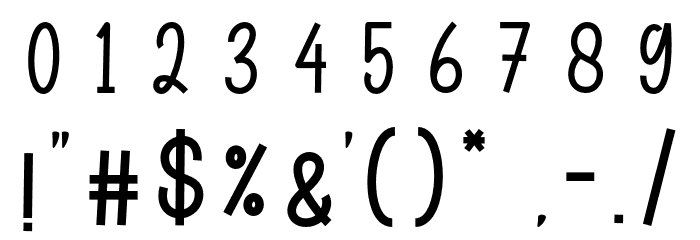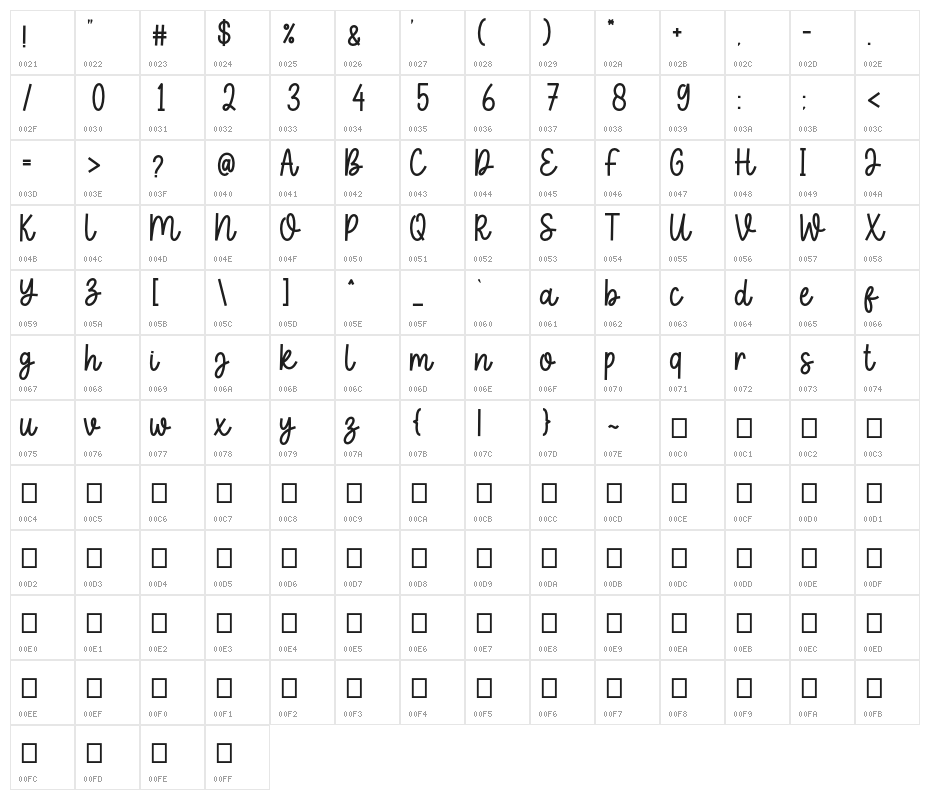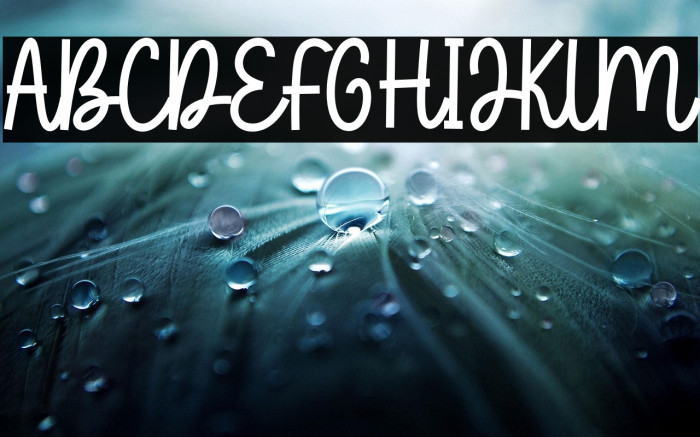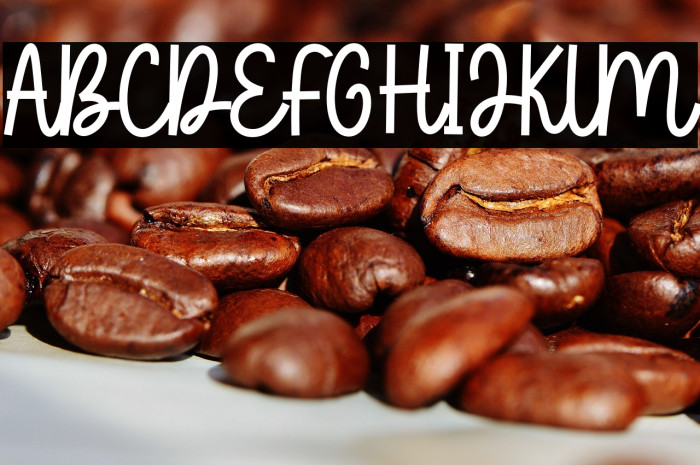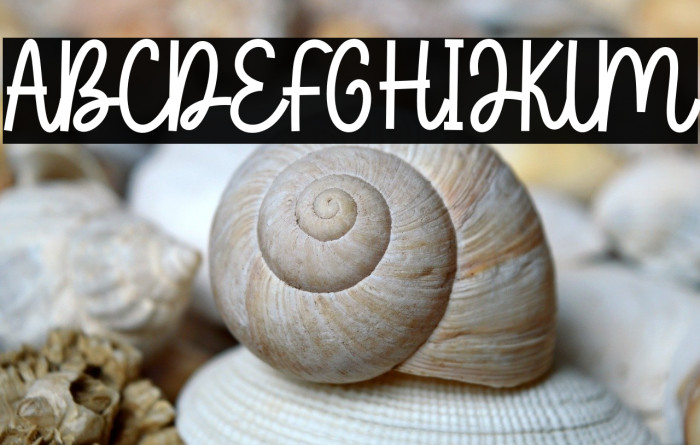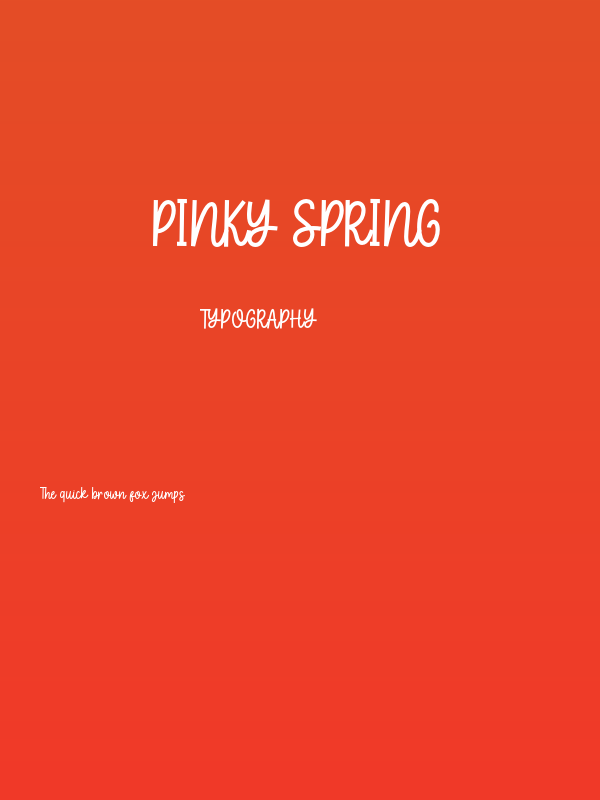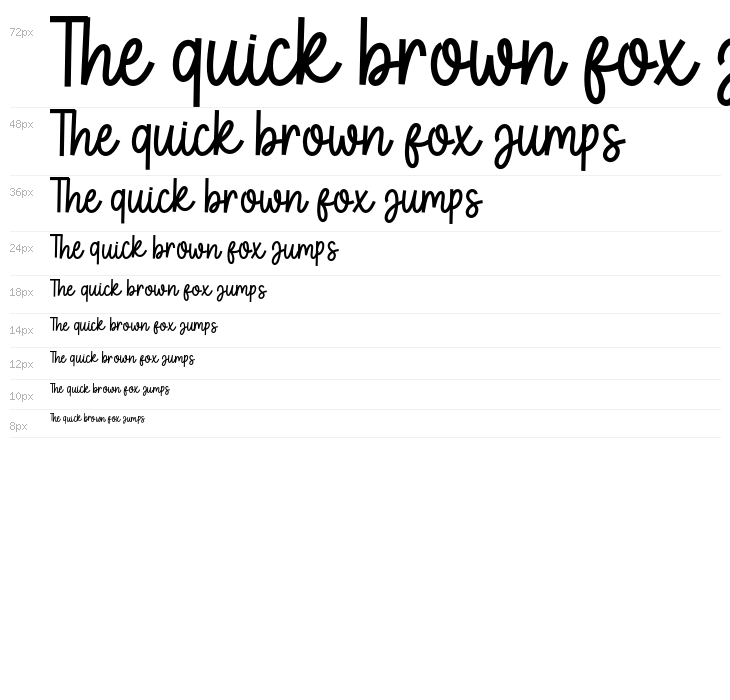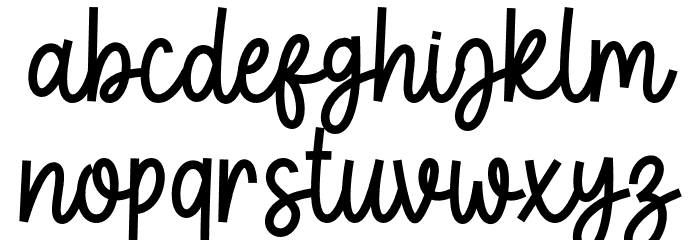
Pinky Spring Font
Pinky Spring Description
This font features a playful and lively script style with a handwritten appearance. The letters are connected, giving it a fluid and continuous look. The uppercase letters are bold and slightly slanted, while the lowercase letters maintain a consistent flow with rounded edges. The numerals are clear and distinct, complementing the overall style. The special characters are well-integrated, maintaining the playful aesthetic. This font exudes a sense of fun and creativity, making it ideal for projects that require a personal touch.
| Overall Style | Playful, Creative |
| Proposed Projects | Ideal for greeting cards, invitations, personal branding, and creative projects that require a whimsical touch. |